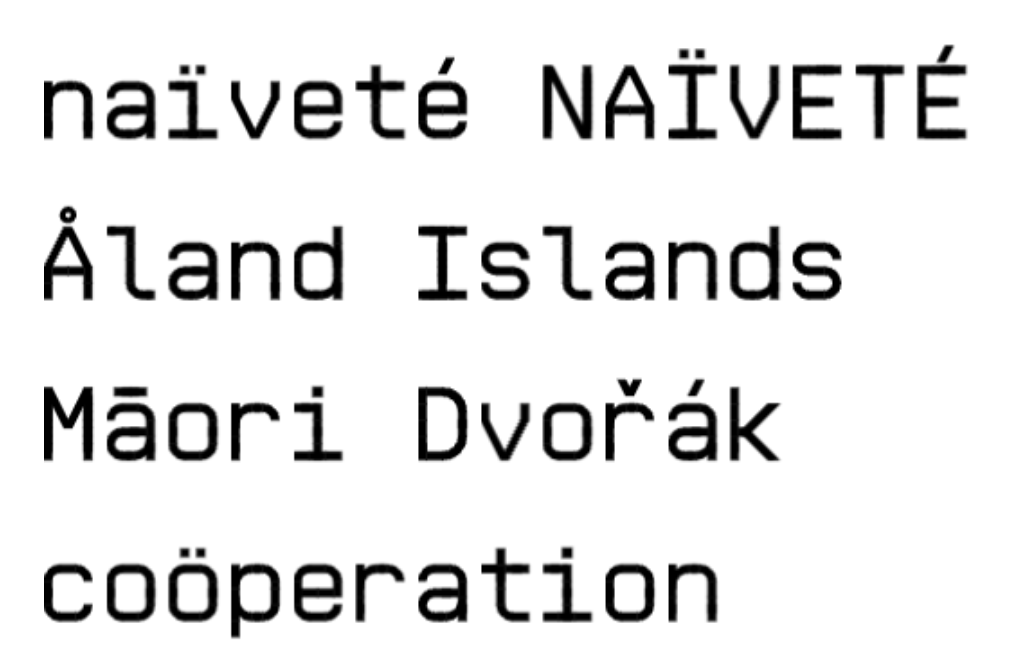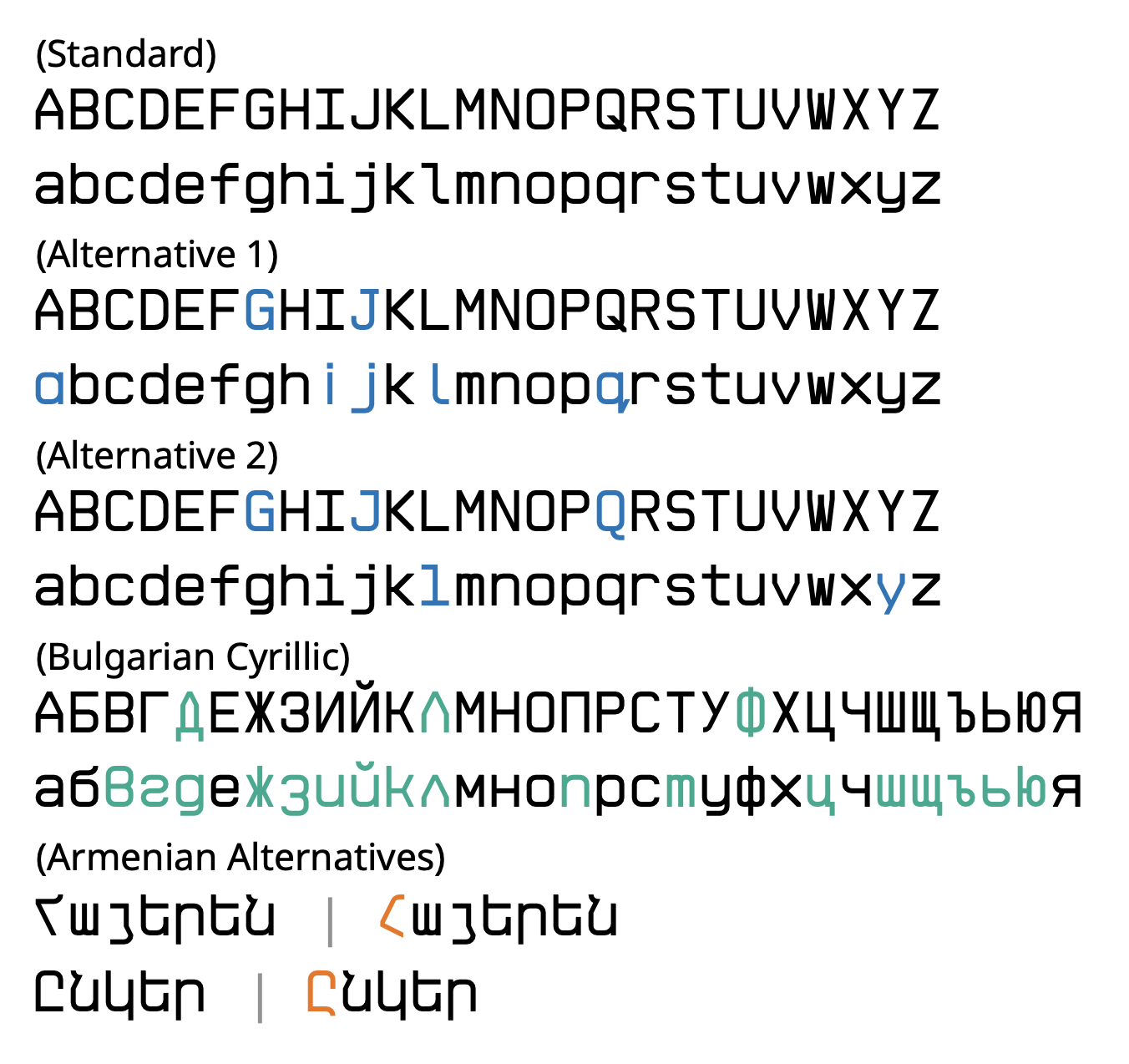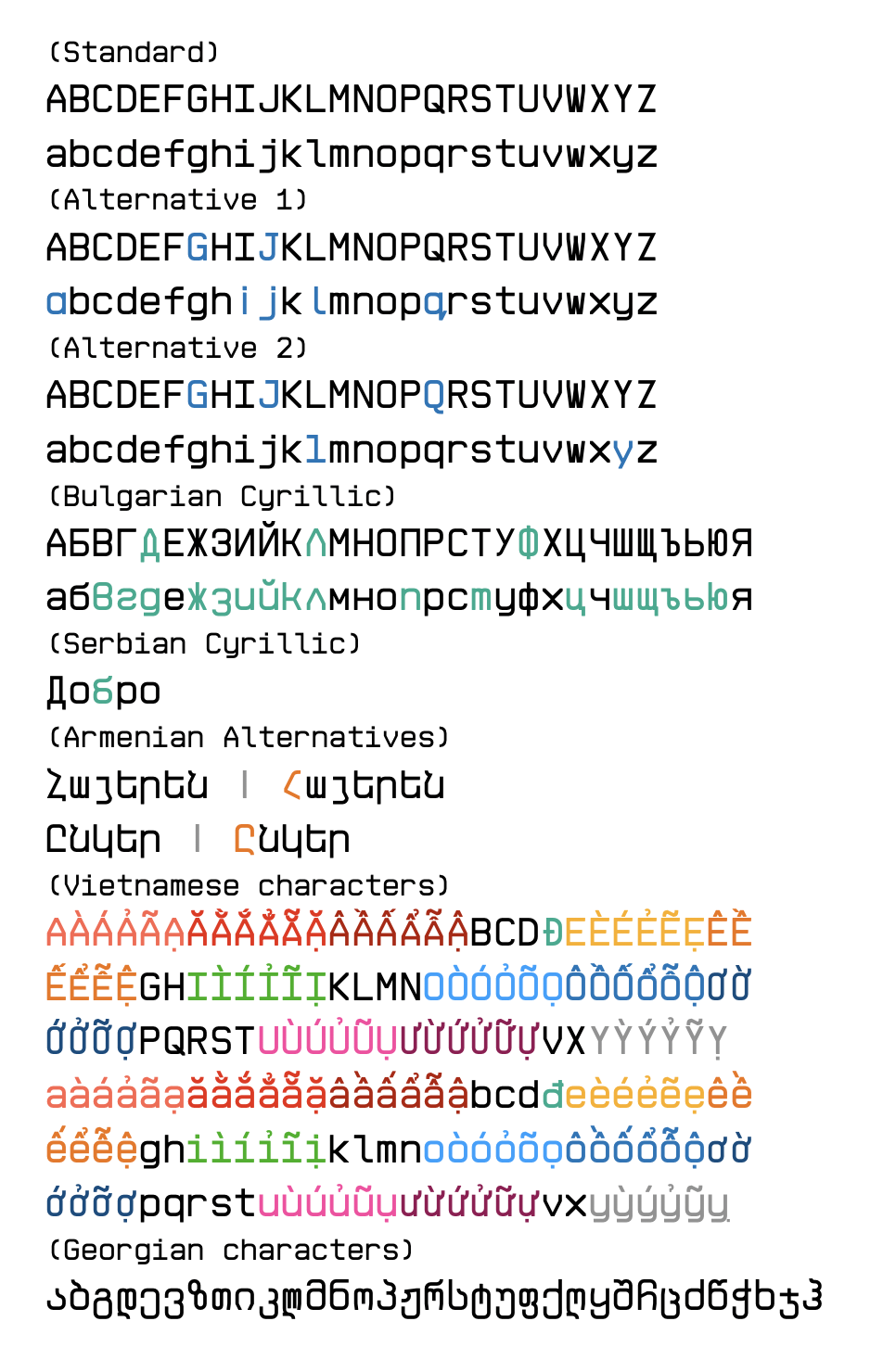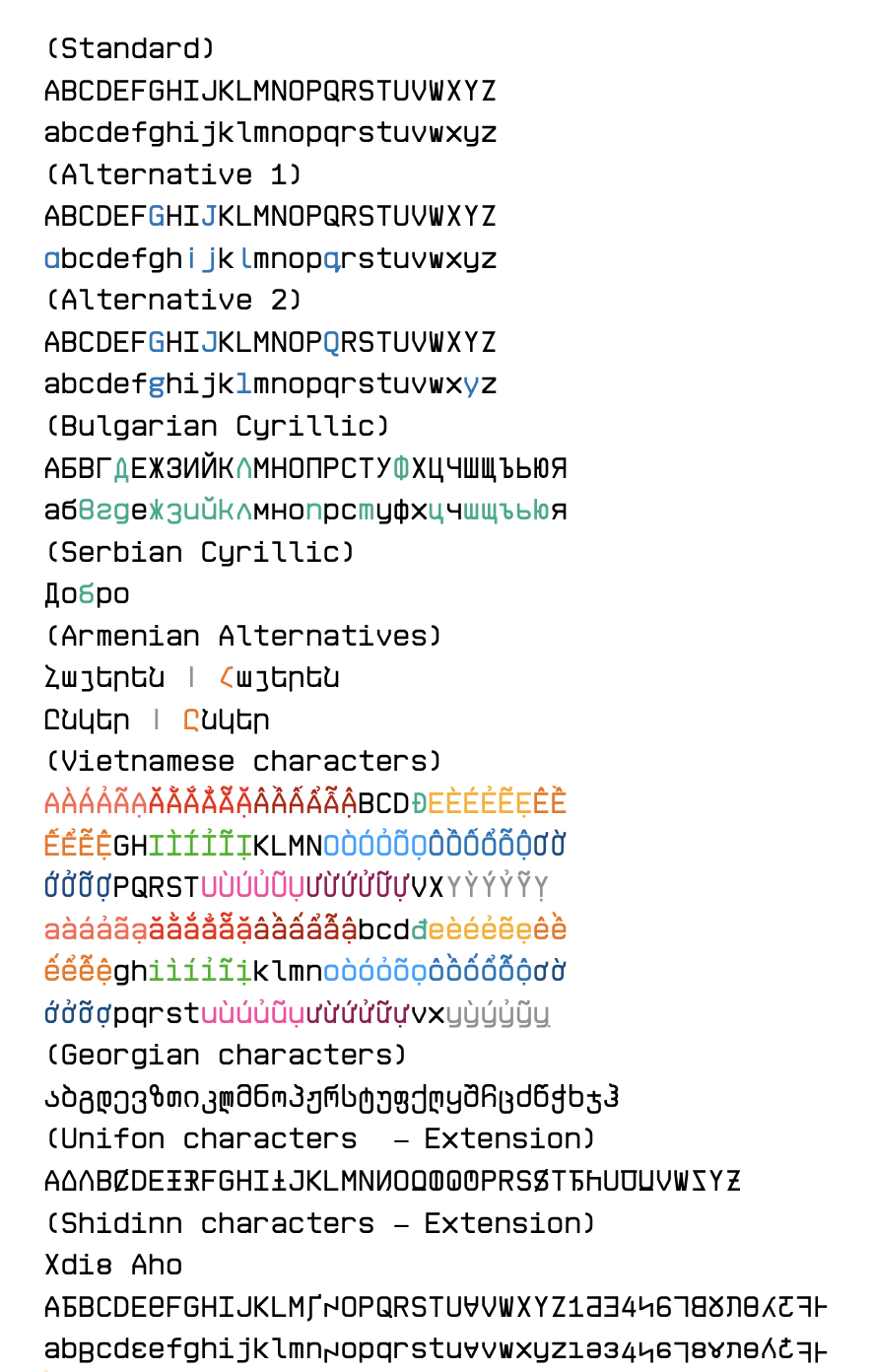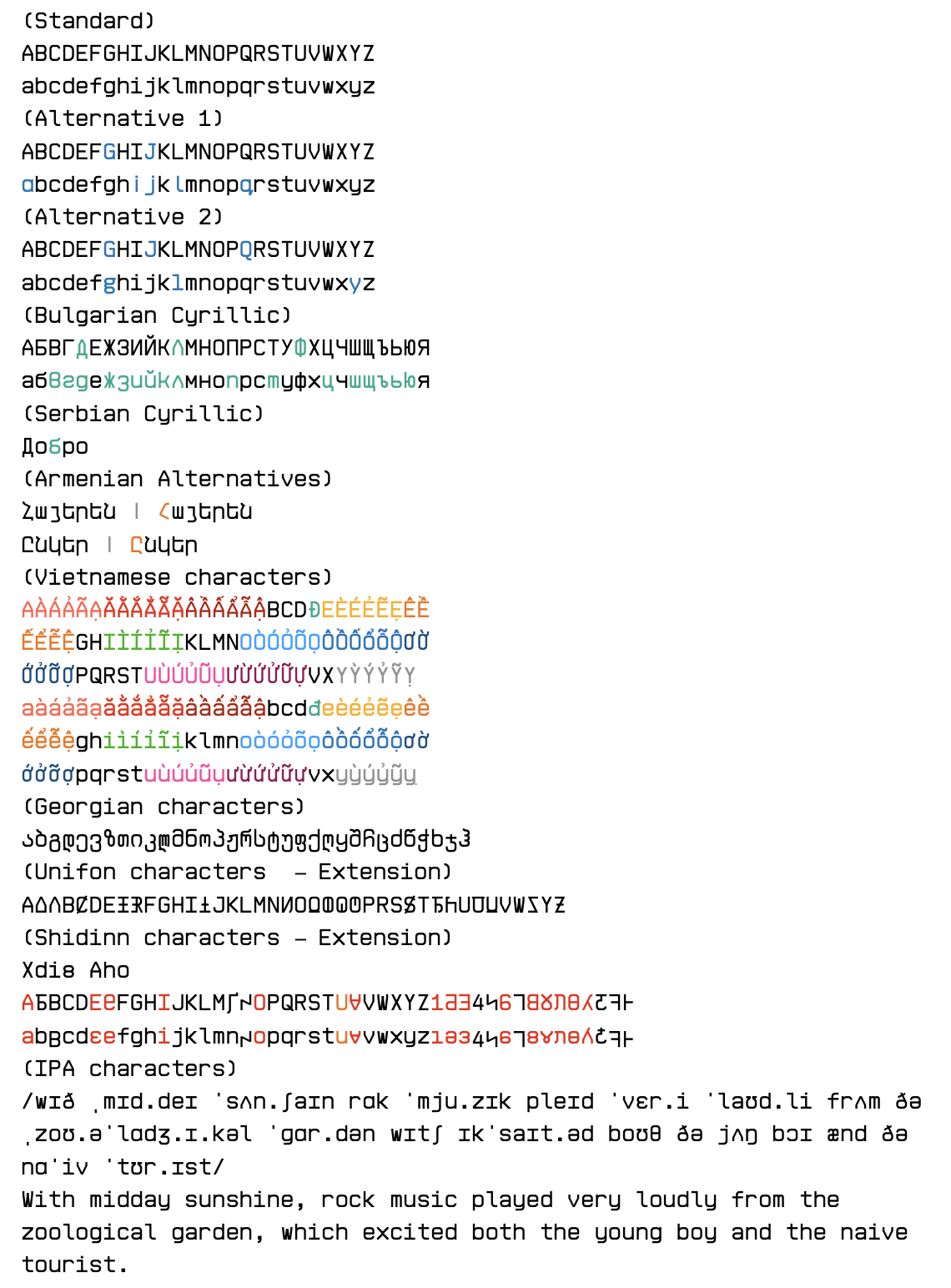
• WIP as a polished sans-serif font. Cmptrmn is the short of computer mono, but in textspeak style
Finished Blocks:
Latin (Basic, Latin1, A, B)
Modifier and Diacritics (basic)
Greek, Cyrillic & Armenian
Hebrew
Added PUA for alternative glyphs, handwritten alternatives, Bulgarian and Serbian Cyrillic variants and a variant of the Armenian “ho” in uppercase. Armenian “et” has been redesigned.
Finished basic Unifon and Shidinn (PUA) Pre-existing glyphs are not in the PUA because they are already covered in Latin (or Greek & Cyrillic)
Redrawn Armenian ho, added Georgian basic and Vietnamese additions
WIP for cherokee
Added Lisu & Missing letters from Xdi8
Is it me or does Ը kind of resemble Հ (Bolorgir style)?
The Armenian* capitalised Հ, ho does not resemble Ը
It is based on the Segoe UI or SF Armenian style
Recently I realised that the "R-without-straight-line" variant was an anomaly that is, created in the late 20th century after the rise of Unicode, because typographers were struggling to make the traditional zigzag to look geometric or uniform.
Nevertheless, this usage is strongly disputed and criticised by “typographical nerds” or purists saying it is a bit like an act of “assimilation” to “Latinise” Armenian characters. Due to this reason, the recent Armenian glyphs have been correct to look less like Latin, and following the Segoe UI / SF Armenian suit, following either the “Erkat'agir” or “Shghagir” variant. You can also go to the encyclopedia entry in Wikipedia for more information about the design of the glyph at https://en.wikipedia.org/wiki/Ho_(Armenian) .
Similarly, it is strongly discouraged to use f for "ք" or r for "ր".
For accented characters, I decided that the ring in the letter Å should not be attached onto the top of the letter A because it can lead to inconsistency with the letter Ů, whose ring is never attached. Also it can lead to reading problems to people with disabilities, especially dyslexic people.
There is a formula where for two-pixel height diacritics, like an acute, tilde, grave, circumflex (aka caret), ring etc should take 0.5 y pixel for a capital letter or a lowercase letter with an ascendent, but 1 y pixel for general lowercase letters.
test of diacritics, note that this rule is not applicable to the diaeresis or the macron etc because it takes ONE y pixel only.
To summarise, in modern Armenian fonts, using the R-without-vertical stroke is increasingly seen as a major design faux-pas.
the R-without-vertical? isn't it the Հ-without-vertical?
@marcotoa You appear to have misinterpreted my comment. I did not say that Հ (Ho) resembled Ը (Et), I said that Ը (Et) resembled Հ (Ho) because of the part at the bottom right going downwards.
Bit of a side note: Latest version of FontForge (as of writing this comment) still copies “f” to “ք” when doing Build Composite Glyphs or Build Duplicate Glyphs. It doesn't even look anything like “f”.
How about do I need to redesign the “et” or that’s fine enough.
Comment by marcotoa Thu, 27th august
Is it a good idea for me to design the et character to remove the bottom descender hook or not
Comment by marcotoa Thu, 27th august
This is what I should’ve interpreted
Comment by marcotoa Thu, 27th august
Am I right?
Comment by marcotoa Thu, 27th august
well if it wasn't the first attempt then definitely it must be right this attempt
Comment by Luca Prieto Bermūdez (elliqvl) Thu, 27th august
Comment by marcotoa Thu, 27th august
Version 1.3
Comment by marcotoa Thu, 27th august
V1.5
Comment by marcotoa Thu, 27th august
Glyphset
Comment by marcotoa Thu, 27th august
this is increasing incredibly fast
Comment by Luca Prieto Bermūdez (elliqvl) Thu, 27th august
hey, tesh (found at the end of "which") is typed as 2 chars in your example, but it's single char in IPA, right?
Comment by SquareOctent Fri, 28th august
@SquareOctent That's an affricate, which is usually written with a tie bar, but it can be omitted as long as it doesn't create ambiguity. Affricates were historically written as ligatures, but that was dropped in 1989.
What do you mean? In which script? Can you please clarify which character(s)?